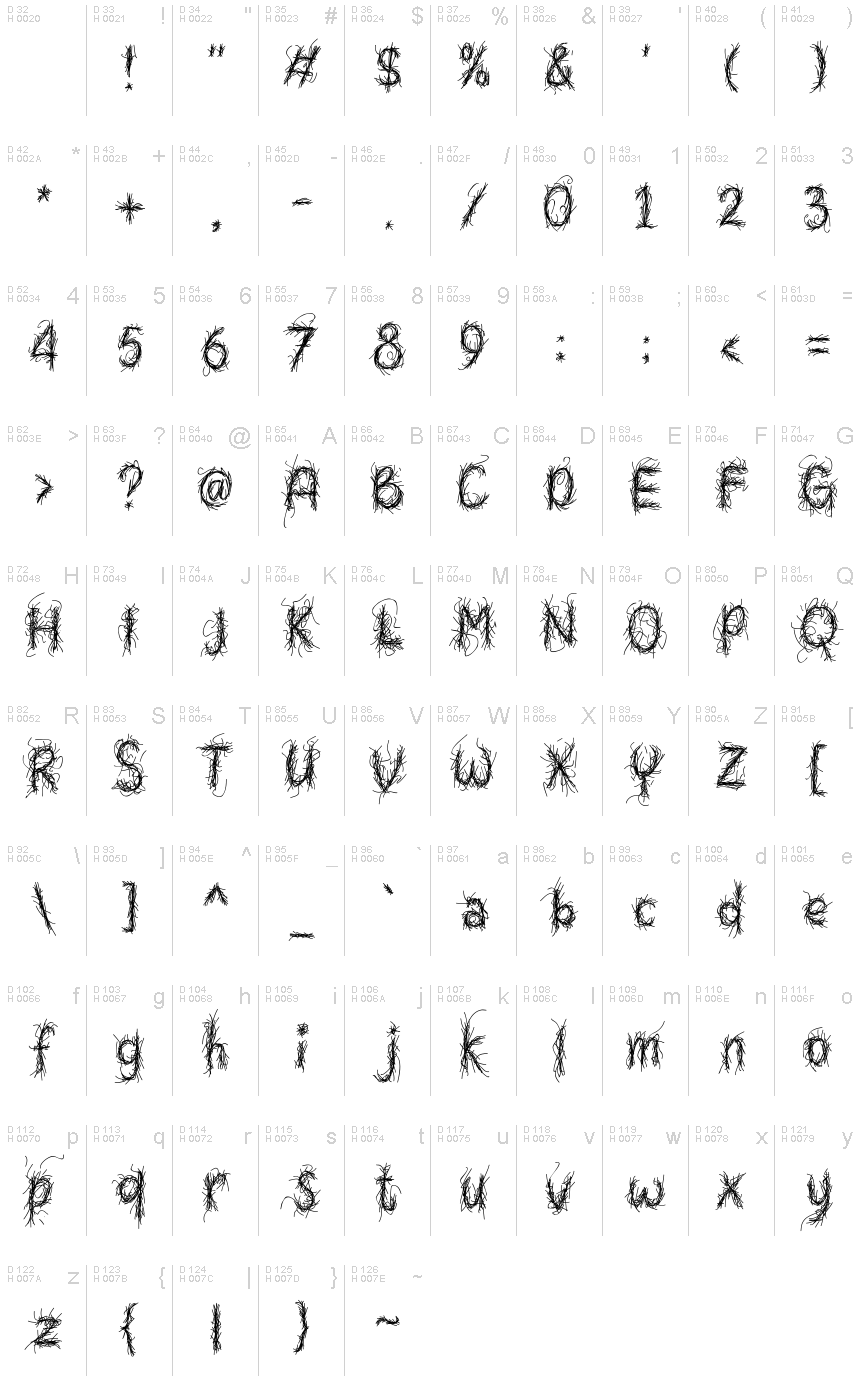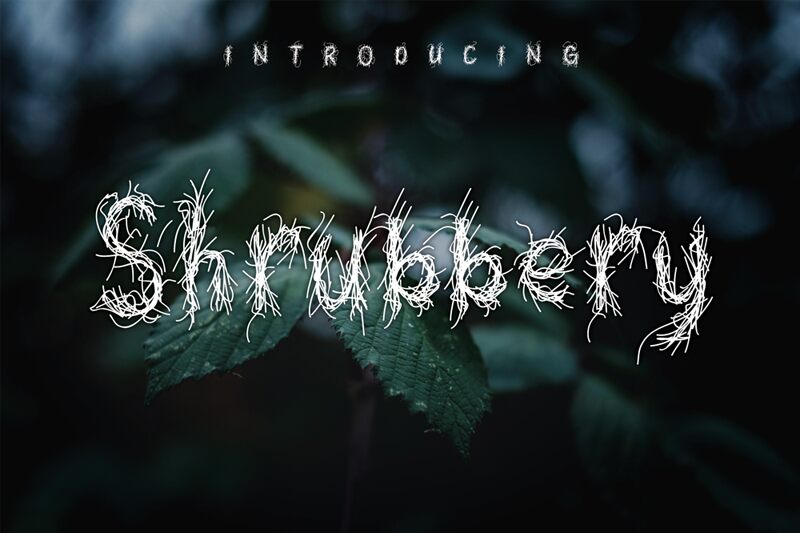
Shrubbery
Shrubbery font, designed by Royaltype, captivates with its wild and treacherous aesthetic. This display typeface embodies a playful yet eerie essence, reminiscent of tangled foliage that intertwines and twists in unexpected ways. Its strikingly exaggerated forms create an engaging visual experience that pulls the viewer in.
The intricate design evokes a sense of mystery and adventure, making it ideal for projects seeking to convey a hint of the macabre or fantastical. With its whimsical flair, Shrubbery is perfectly suited for use in titles for Halloween-themed events, spooky stories, or any creative venture aiming to capture attention with an unconventional twist. Embrace this unique font to infuse your designs with character and intrigue.